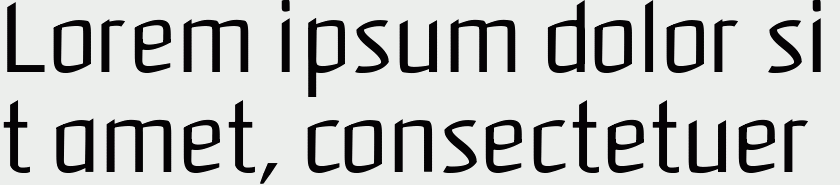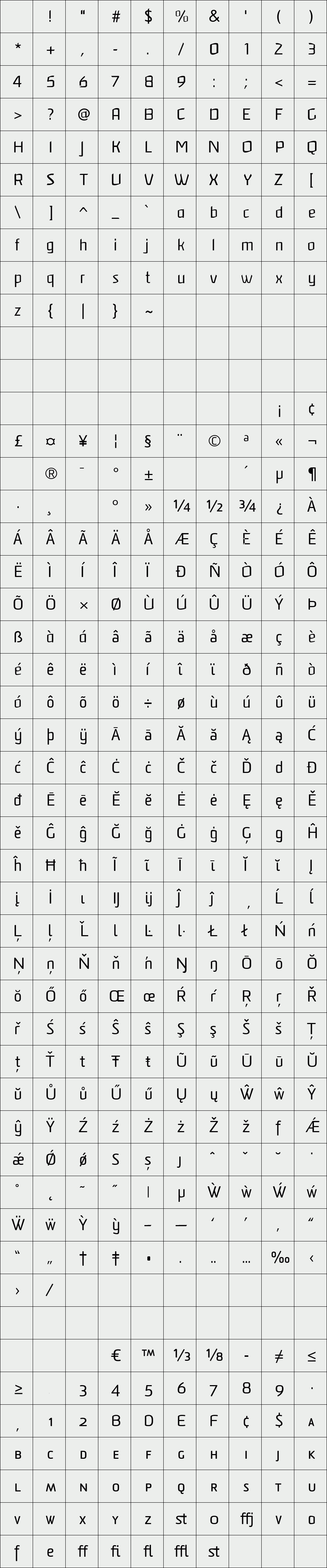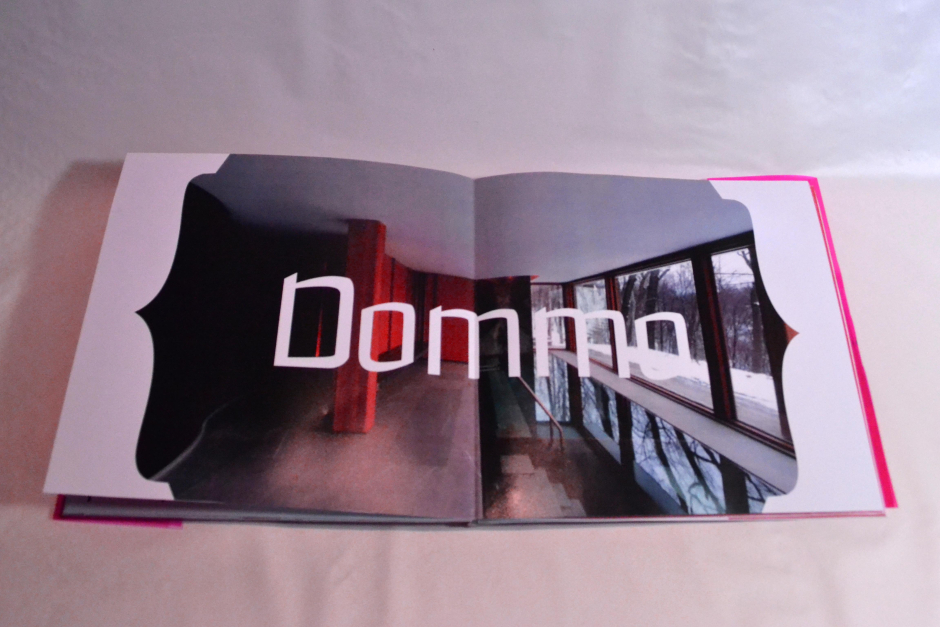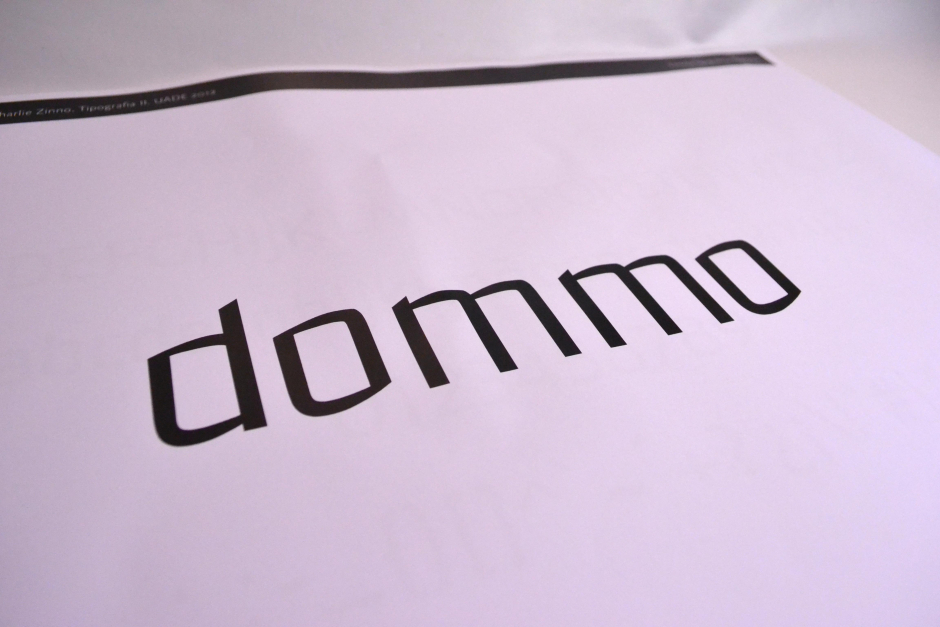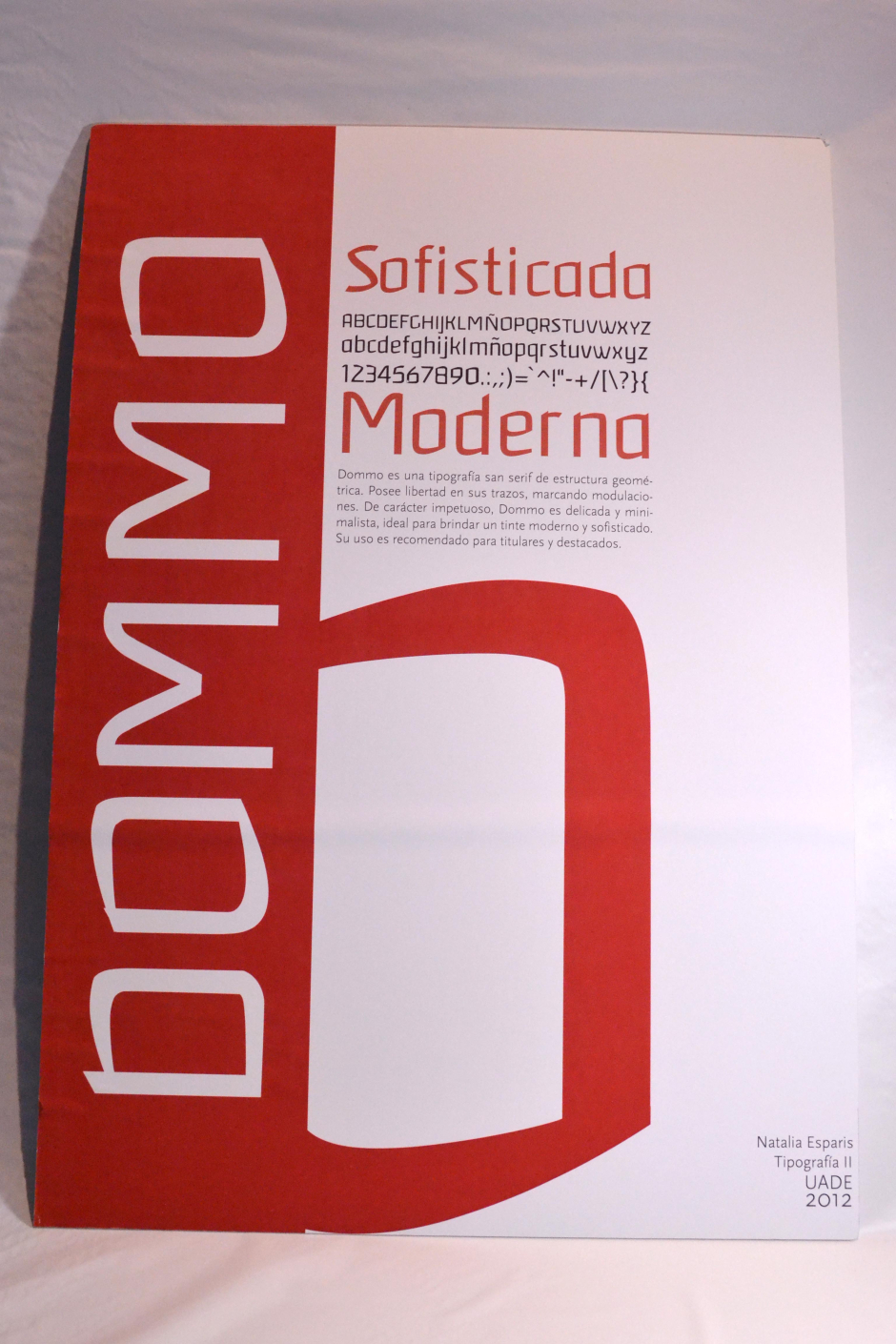
Dommo
Dommo San Serif typeface is a geometric structure, modern and sophisticated. Impetuous character, is delicate and minimalist ideal for use in headlines and highlights.
Designer: Natalia Esparis